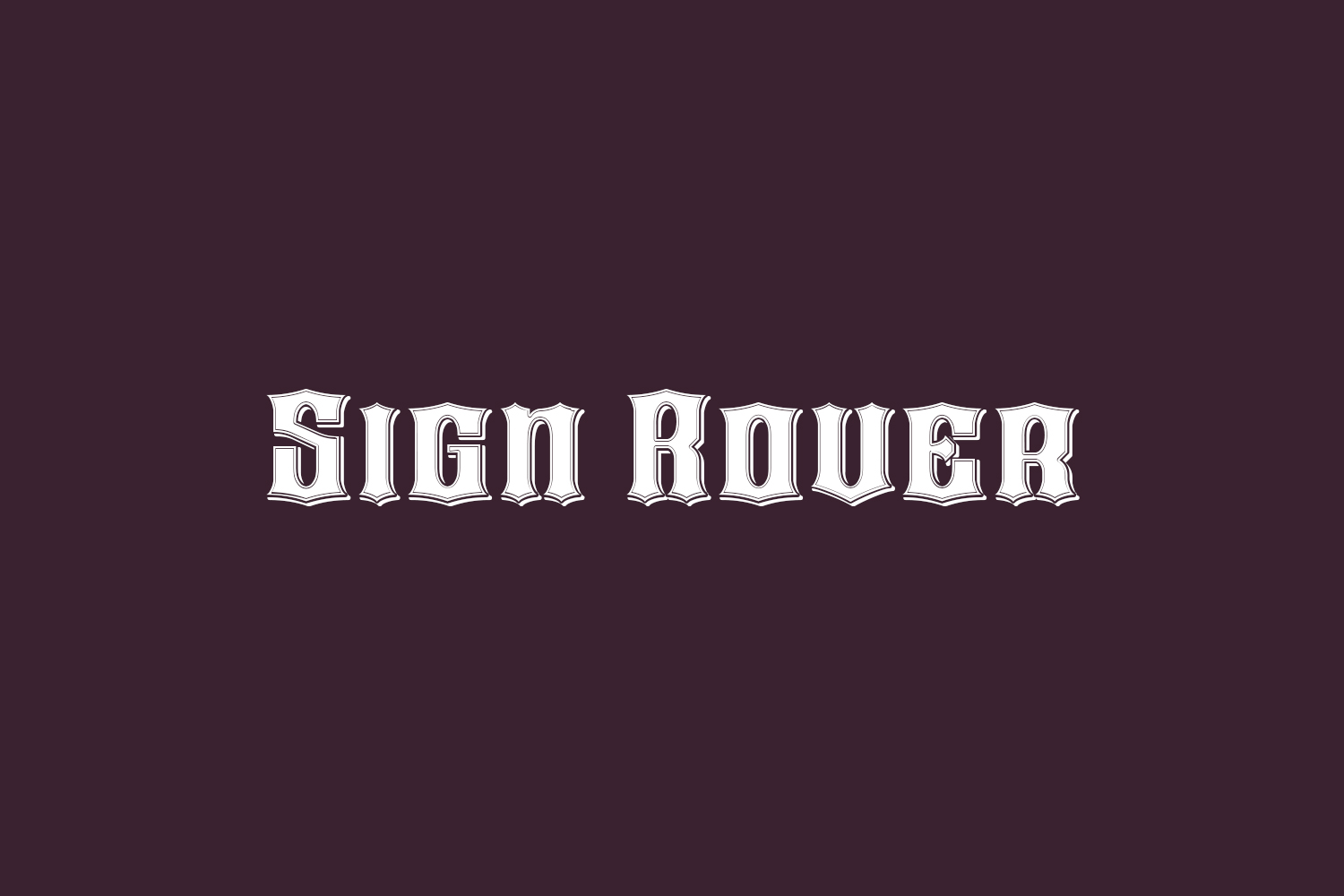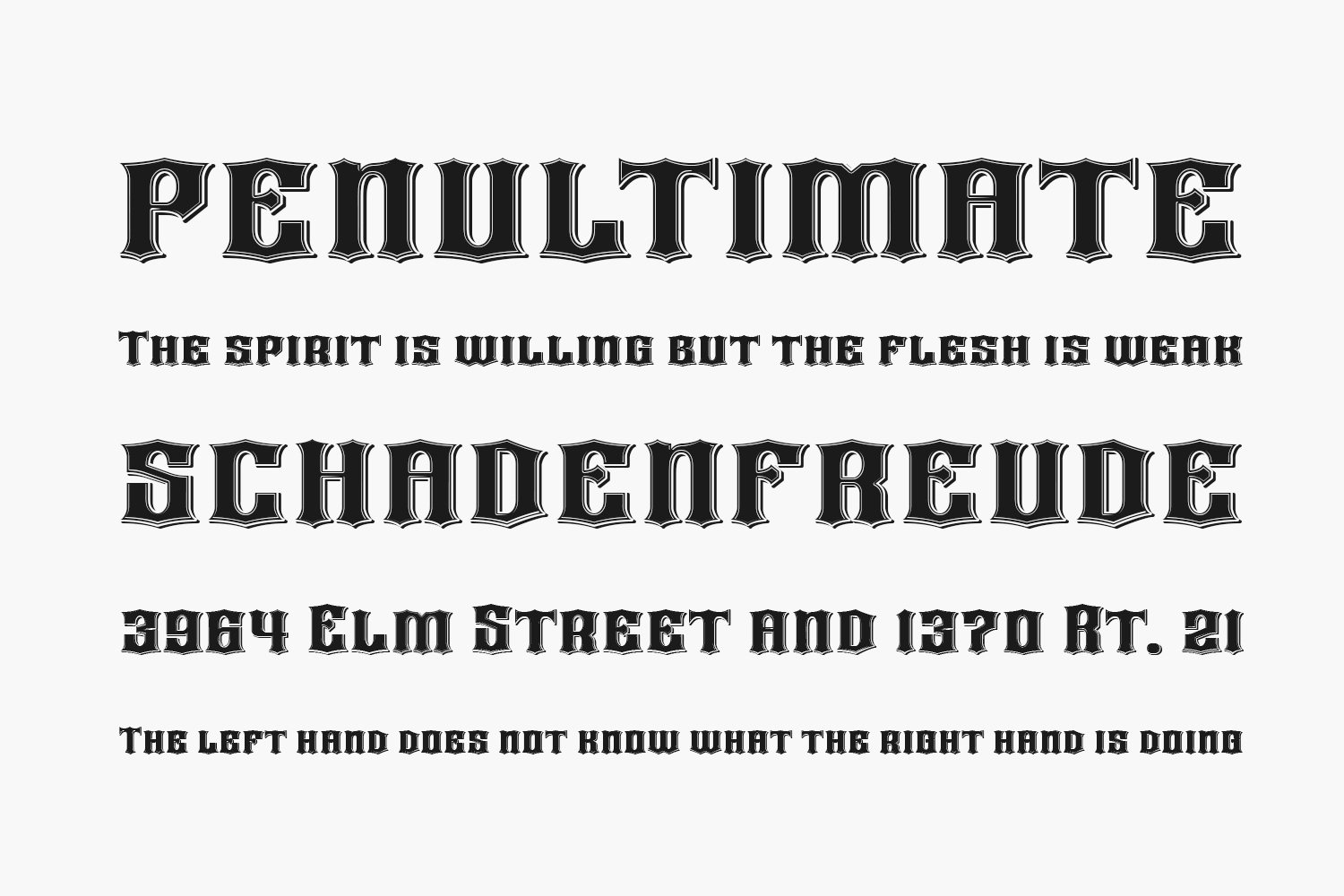
Sign Rover Free Font – Bold Blackletter Typeface for Strong Visual Identity
Sign Rover is a bold and stylish blackletter font designed by Bangkit Tri Setiadi to bring strong visual presence and historical elegance to your creative projects. With its sharp letterforms, modernized calligraphic structure, and confident strokes, this free decorative typeface works perfectly for crafting memorable logos, magazine headers, brand badges, and more. Available in TTF format — ideal for designers seeking a powerful script font that blends tradition with contemporary clarity.
Why Choose Sign Rover?
- Bold Blackletter Style: Combines classic Gothic elements with clean detailing for a dramatic yet readable appearance.
- Ideal for Logos & Badges: Perfect for branding materials needing strength, such as streetwear labels, music studio logos, or urban fashion kits.
Where to Use Sign Rover?
Sign Rover shines across a variety of creative applications:
- Logos & Branding: Adds intensity to brand identities for underground studios, punk bands, or action brands needing a strong tone.
- Poster & Billboard Design: Designed for high visibility — makes headlines pop in outdoor advertising and event banners.
- Social Media Graphics: Creates bold text overlays for Instagram Stories, TikTok videos, or YouTube thumbnails with an edgy appeal.
- Packaging Design: Brings uniqueness to product tags on novelty items, beverage cans, or lifestyle goods requiring a bold look.
- Editorial Headers: Stands out in blog headers, magazine covers, and digital banners with a vintage-inspired charm.
Design Tips with Sign Rover
- Glyphs: Basic Latin (A-Z, a-z, 0-9, punctuation), Extended Latin characters.
Designed by Bangkit Tri Setiadi